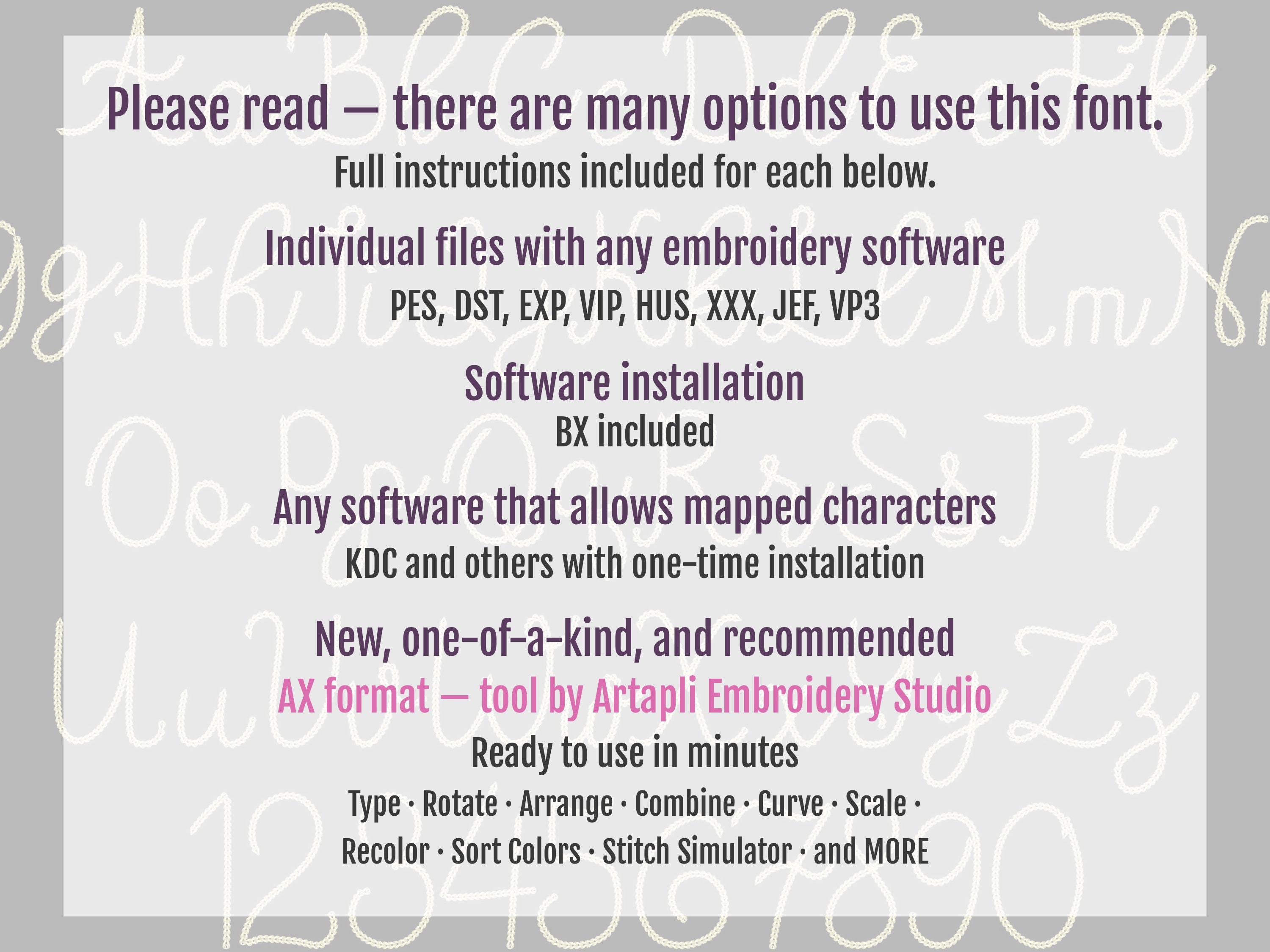
Bold Authentic Script Chain stitch FONT machine embroidery designs alphabet letters knit sweater handwritten effect chain name, BX included
Whole alphabet A-Z uppercase and lowercase letters, and numbers 0-9